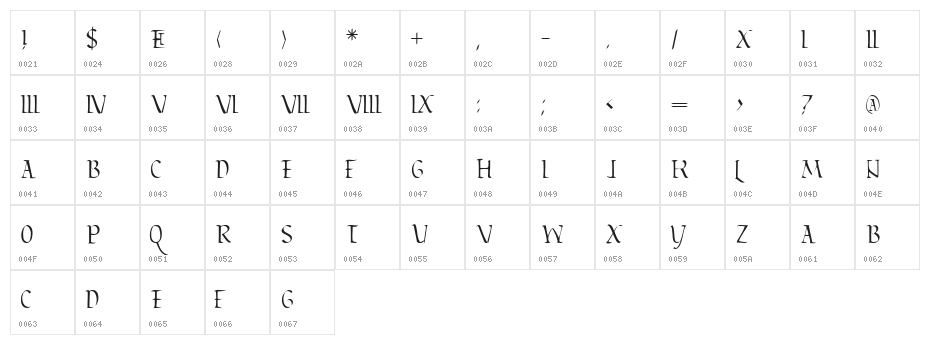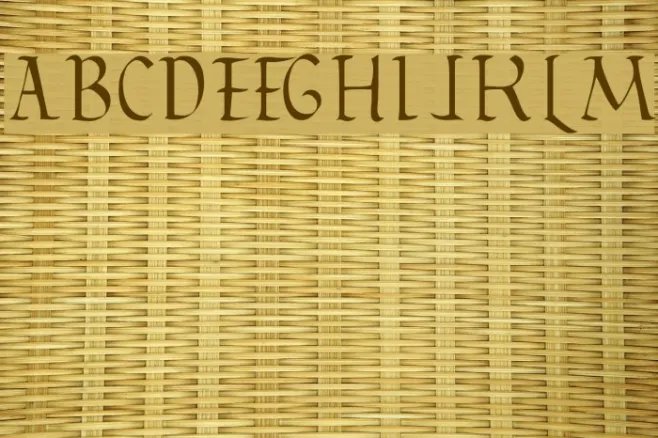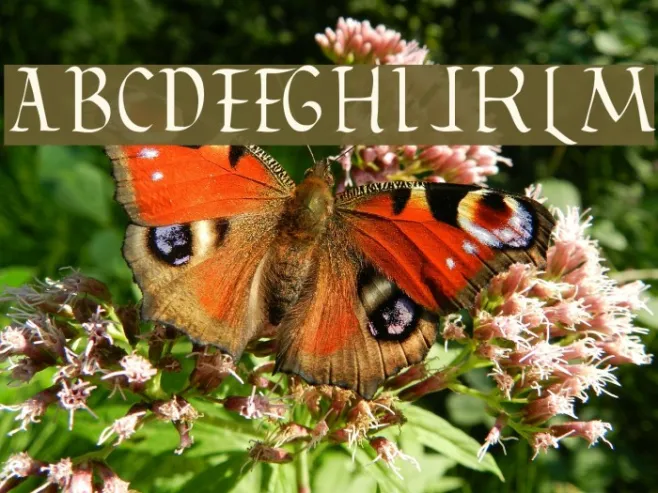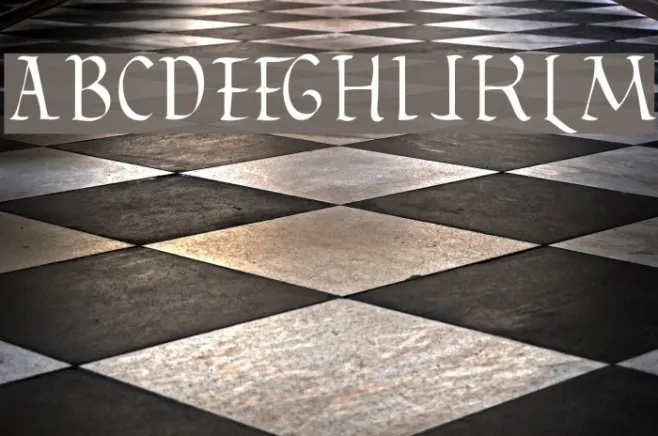
Odoaker Font
Odoaker Description
This font exhibits a unique blend of historical and modern elements, characterized by its sharp, angular serifs and distinctively elongated strokes. The uppercase letters feature a medieval flair, reminiscent of Gothic script, yet maintain a contemporary edge through their clean lines and balanced proportions. The lowercase letters mirror this style, offering a cohesive look across the typeface. The numerals are stylized with a similar aesthetic, ensuring consistency throughout. Special characters are crafted with the same attention to detail, making them suitable for a variety of applications. The overall design is both decorative and functional, making it ideal for projects that require a touch of elegance and sophistication.